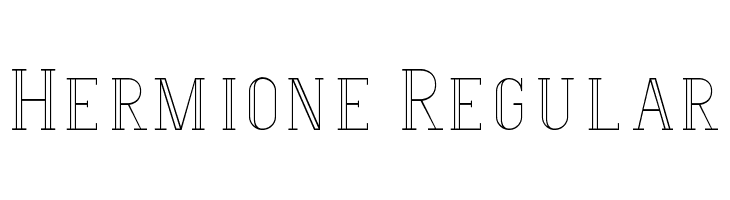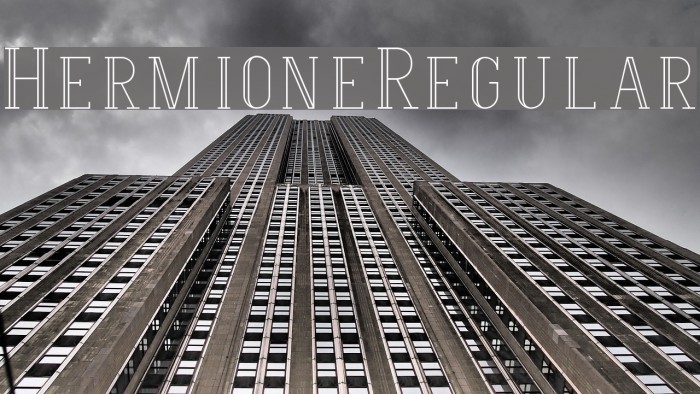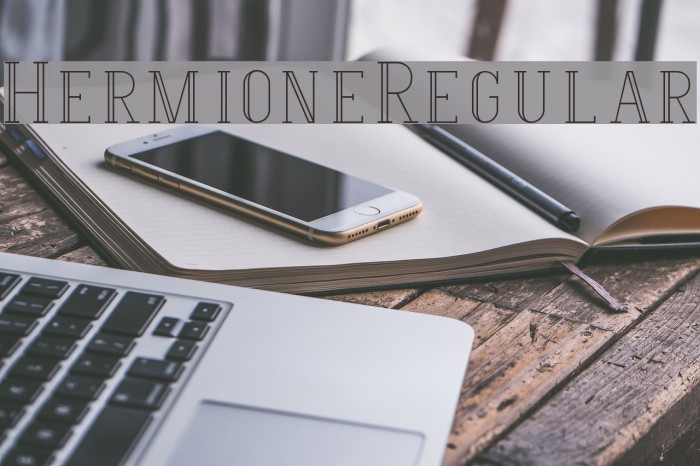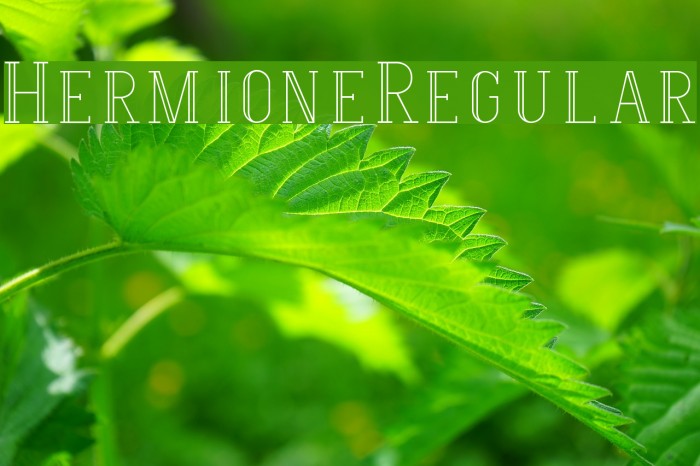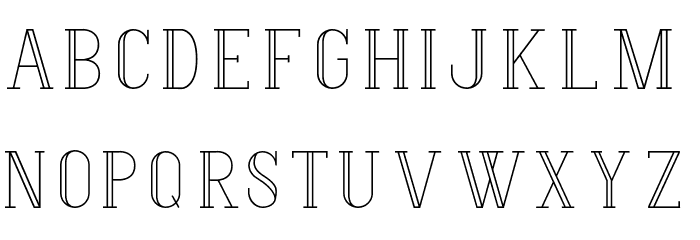
Hermione-Regular Font
This font features a sophisticated and elegant design with a modern twist. The uppercase letters exhibit a tall, narrow structure with clean lines and subtle serifs, giving it a refined and stylish appearance. The lowercase letters maintain the same elegance, with a slightly more rounded form that complements the uppercase. The numerals are consistent with the overall design, offering clarity and precision. The special characters are thoughtfully crafted, ensuring they blend seamlessly with the rest of the typeface. This font's unique blend of classic and contemporary elements makes it versatile for various design applications.
A modern, elegant font with clean lines and subtle serifs.
• Proposed Projects: Ideal for branding, editorial design, luxury product packaging, and invitations.
• Category: Serif
• Bold: No
• Italic: No
• Weight: Regular
• Width: Condensed
• Character Spacing: Normal
• Contrast: Medium
• Overall Style: Modern
• Use Case: Headlines, Logos